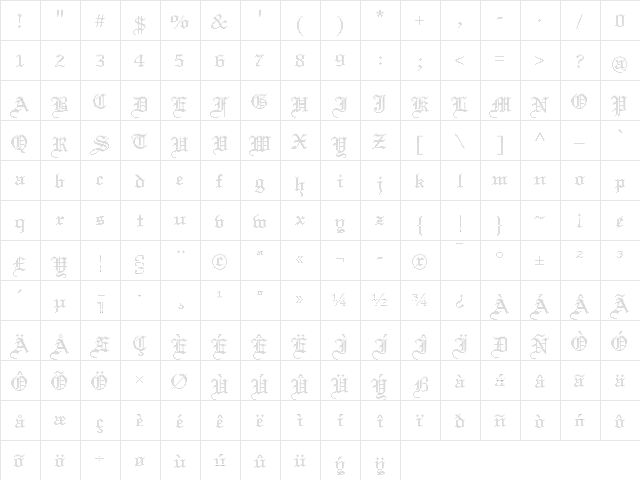
BreaLight Regular
| Foundry | Corey Holms |
| Designer | Corey Holms |
Design Context for BreaLight Typeface
BreaLight is a composed and adaptable typeface that performs quietly and consistently across a wide range of design contexts. The delicate stroke weight brings airiness and refinement to layouts.
Pro Tip: Use BreaLight in both headline and body roles to test its range before committing to a single application.